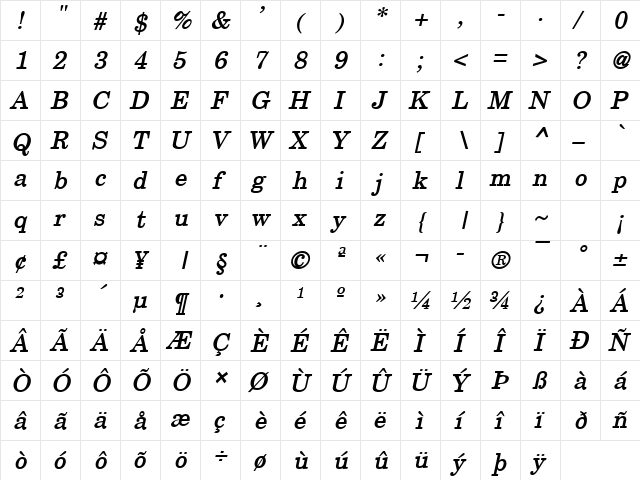
New Boston Bold Italic
Design Context for New Boston Typeface
New Boston is a composed and adaptable typeface that performs quietly and consistently across a wide range of design contexts. The slanted form adds forward momentum and visual energy. Its bold stroke weight gives it real presence on the page.
Pro Tip: Try New Boston for annotation and caption copy alongside an upright companion — the contrast in angle creates a dynamic but ordered typographic system.